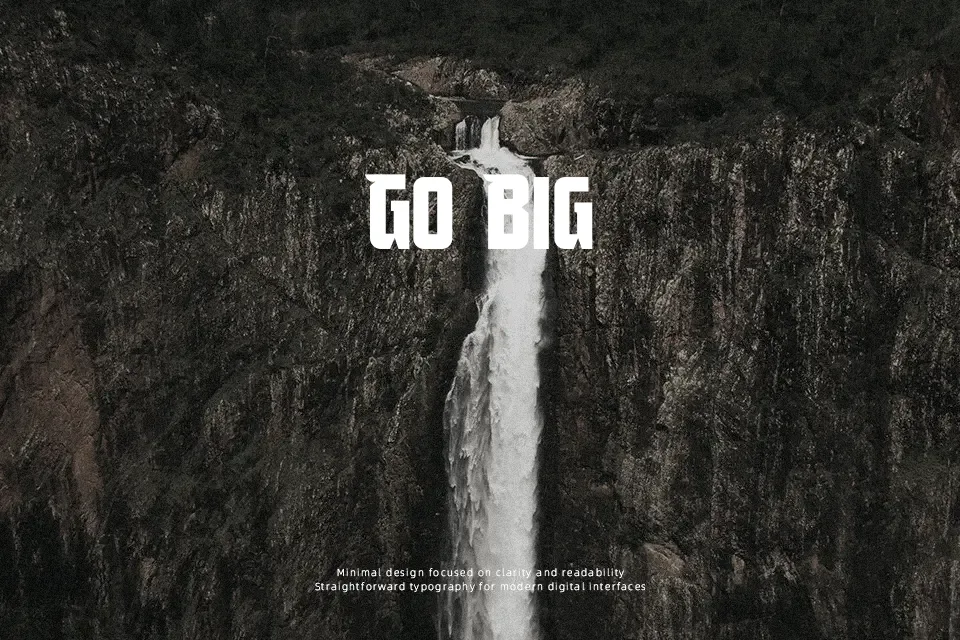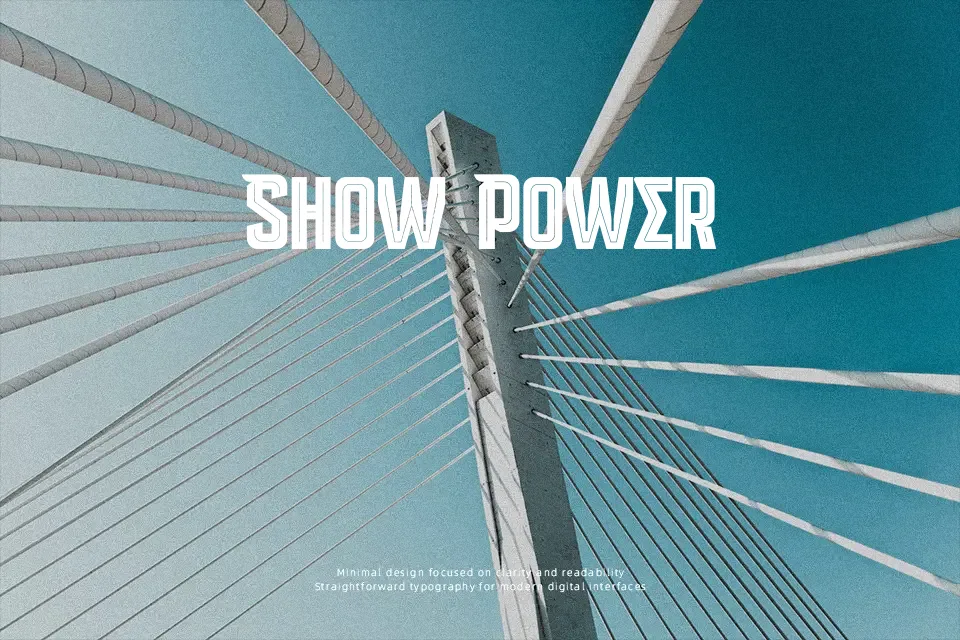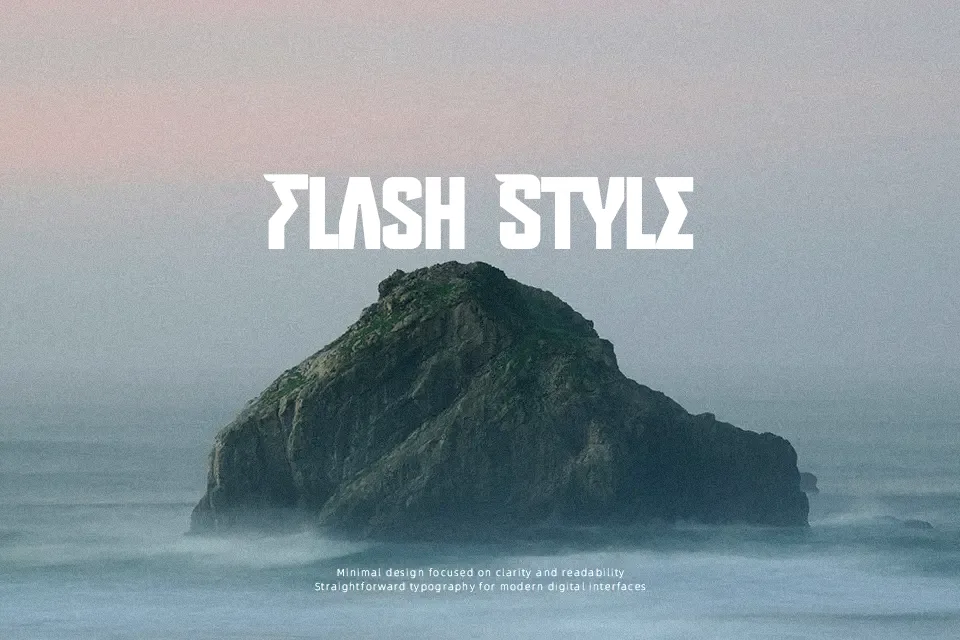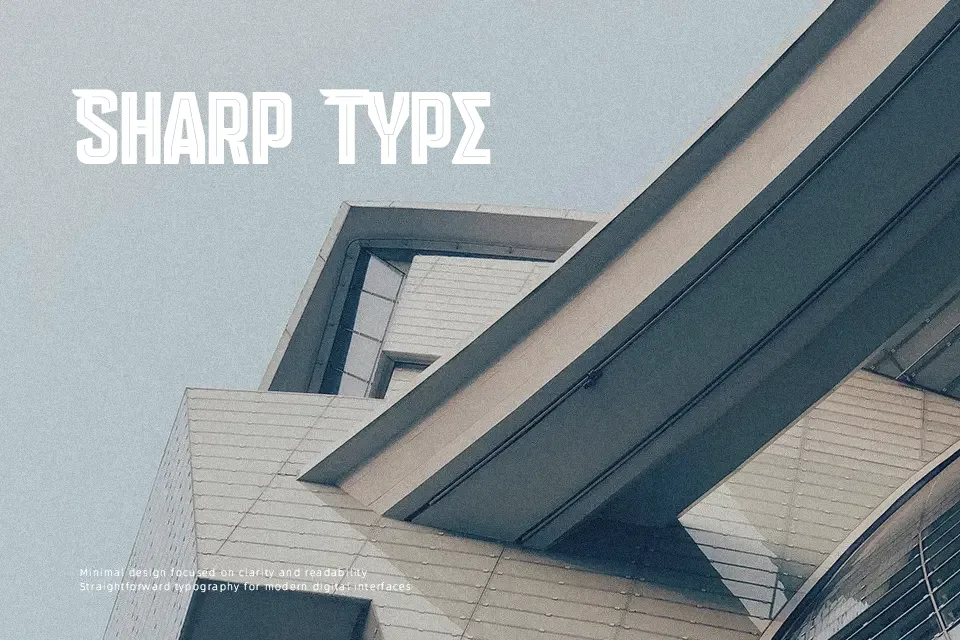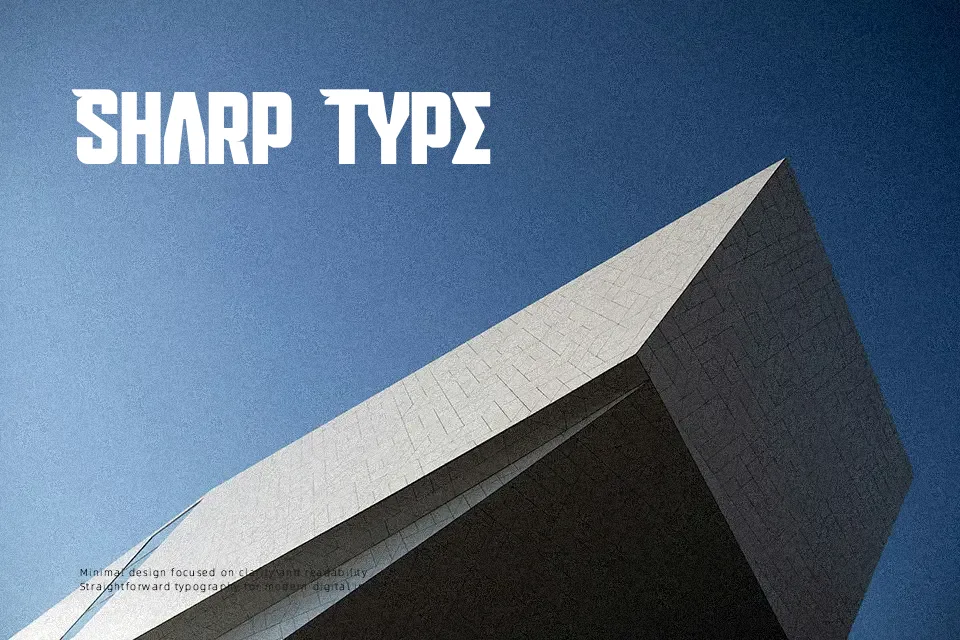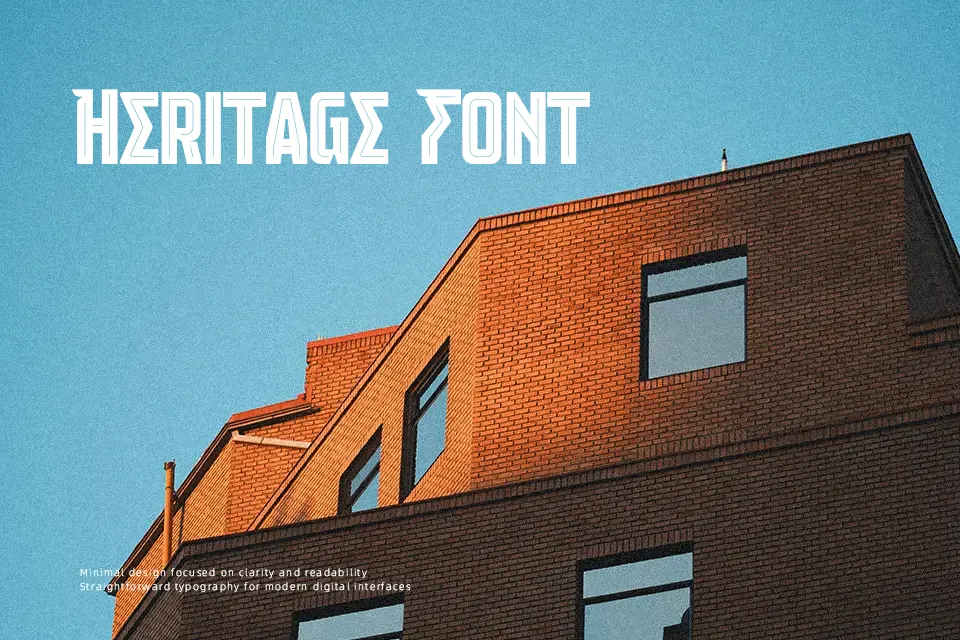
Udinese Font
Udinese Font uses decorative display letterforms with an expressive silhouette and a strong emphasis on visual presence. Its strokes and proportions create a more illustrative rhythm than a conventional text face, making individual words more noticeable in large settings. The typeface is most effective for short titles, identity concepts, and poster-scale wording, where its details have room to read clearly. Spacing works best when the composition is kept open and concise. In practical use, it has more impact as a focal element than as a supporting text style. Its decorative construction makes it less comfortable for small copy or long passages.
Best For: poster headlines,logo concepts,apparel graphics,website hero headlines